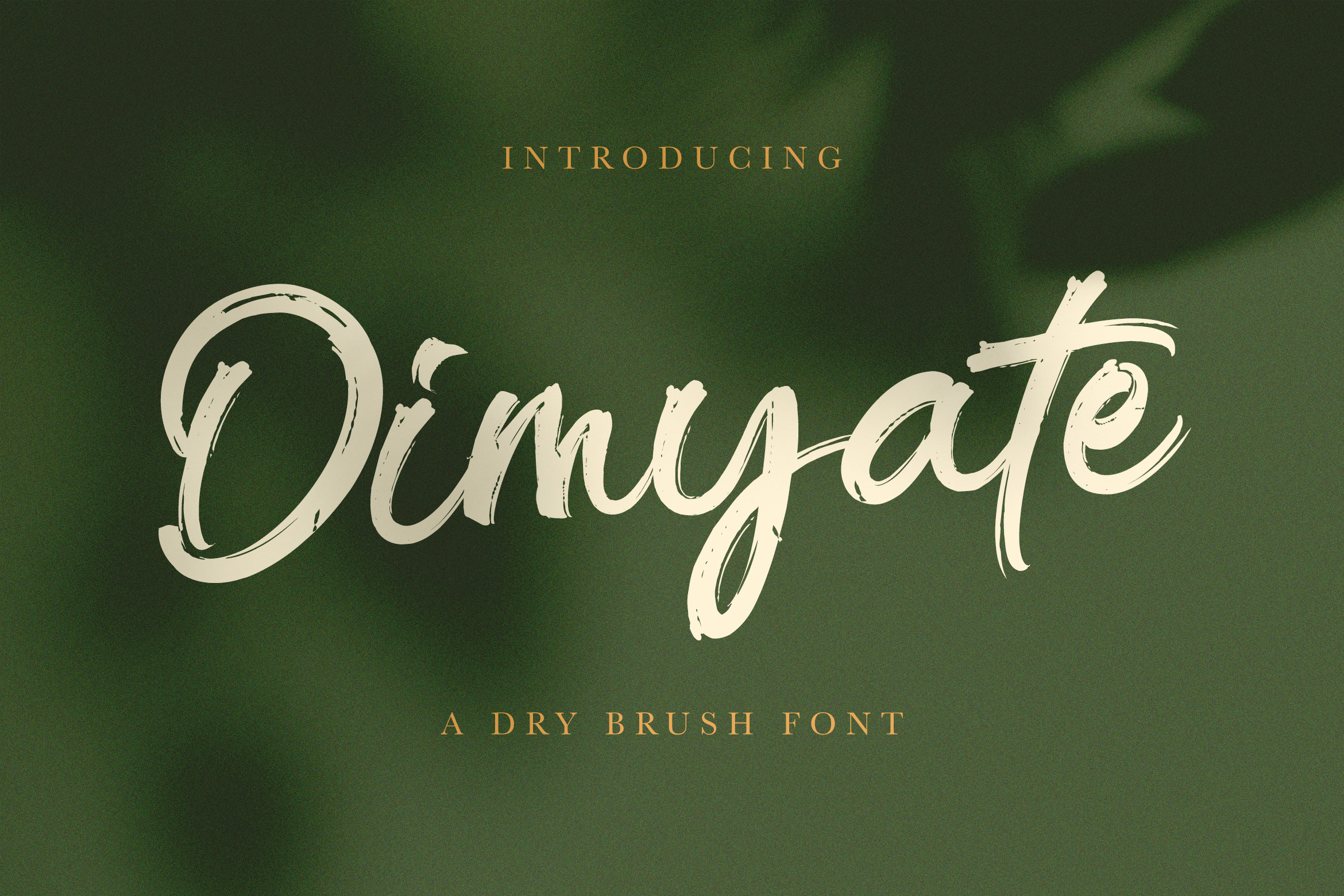
Dimyate - Dry Brush Script Font
Dingate is a dry brush script font designed to capture raw texture, natural strokes, and expressive hand-painted character. With its rough edges and organic brush flow, Dingate delivers a bold yet earthy feel that brings warmth and authenticity to your typography.
This font is perfect for branding, posters, packaging, logos, quotes, apparel designs, social media content, and creative projects that require a handcrafted and natural look. Its dry brush texture gives a strong artistic presence while remaining readable and versatile.
Dingate includes uppercase and lowercase letters, numbers, punctuation, ligatures, and multilingual support, making it suitable for both digital and print use. Whether you’re working on outdoor branding, lifestyle visuals, or expressive design layouts, Dingate adds personality, depth, and creative energy to your work.
Dingate is an ideal choice for designers looking for a natural brush script font with a bold, organic, and modern feel.